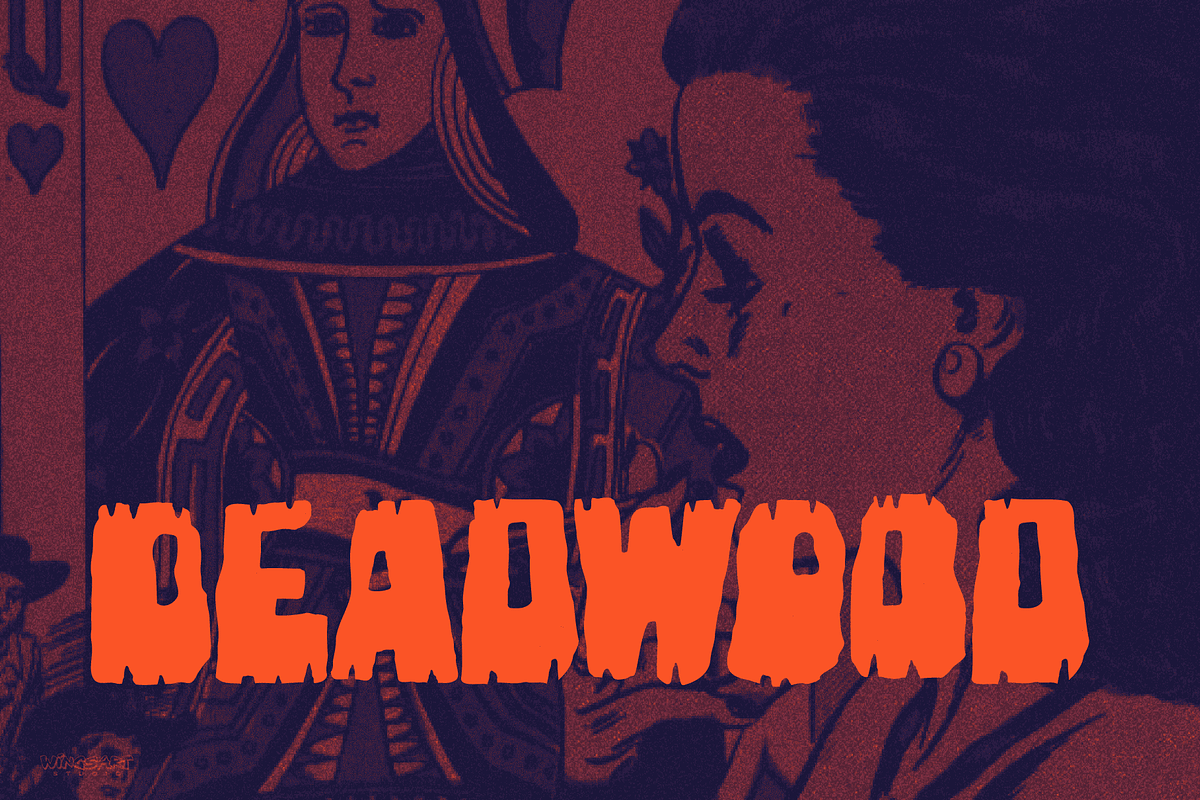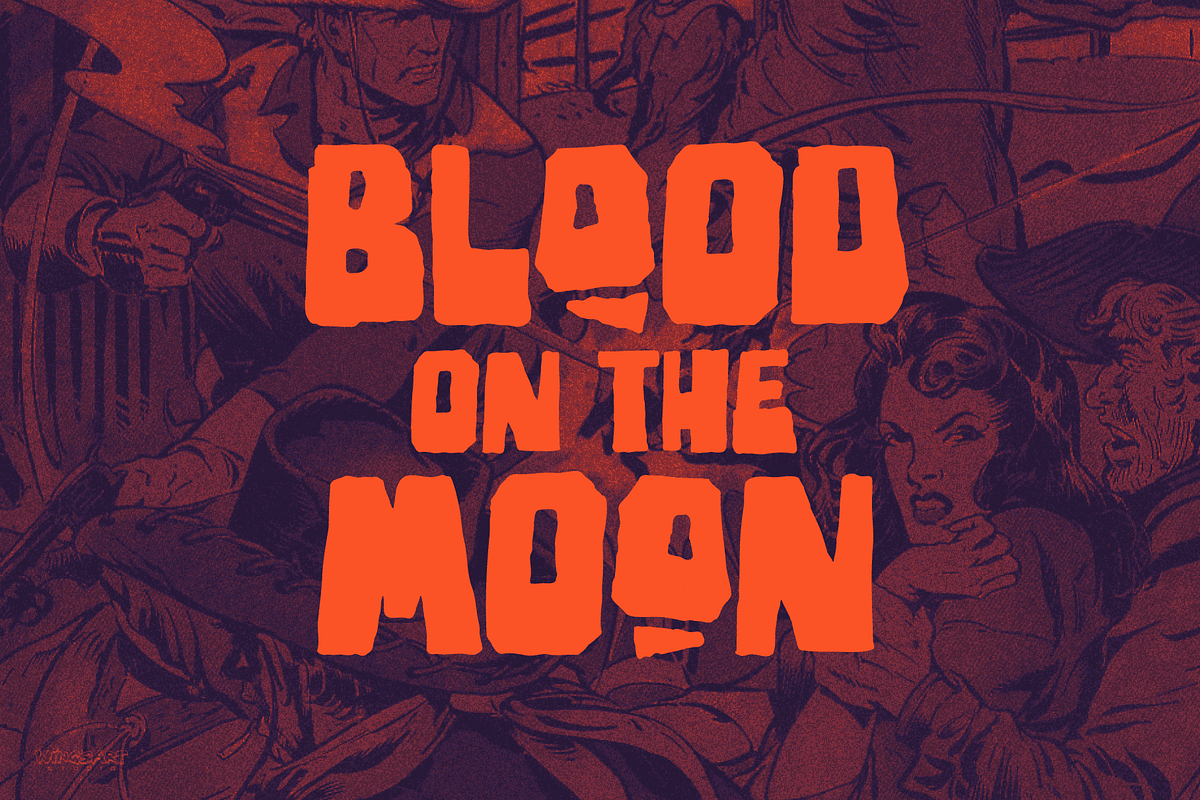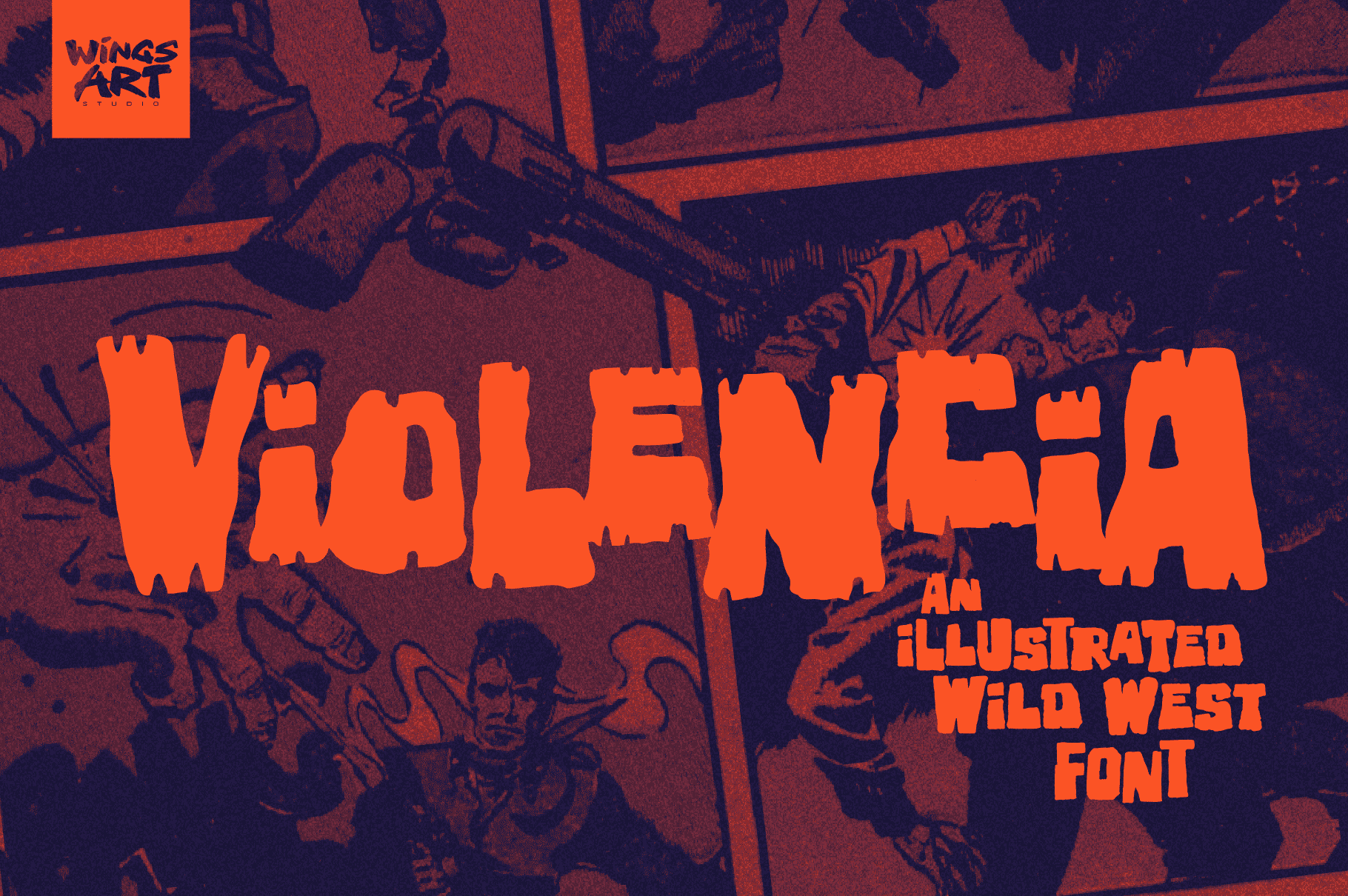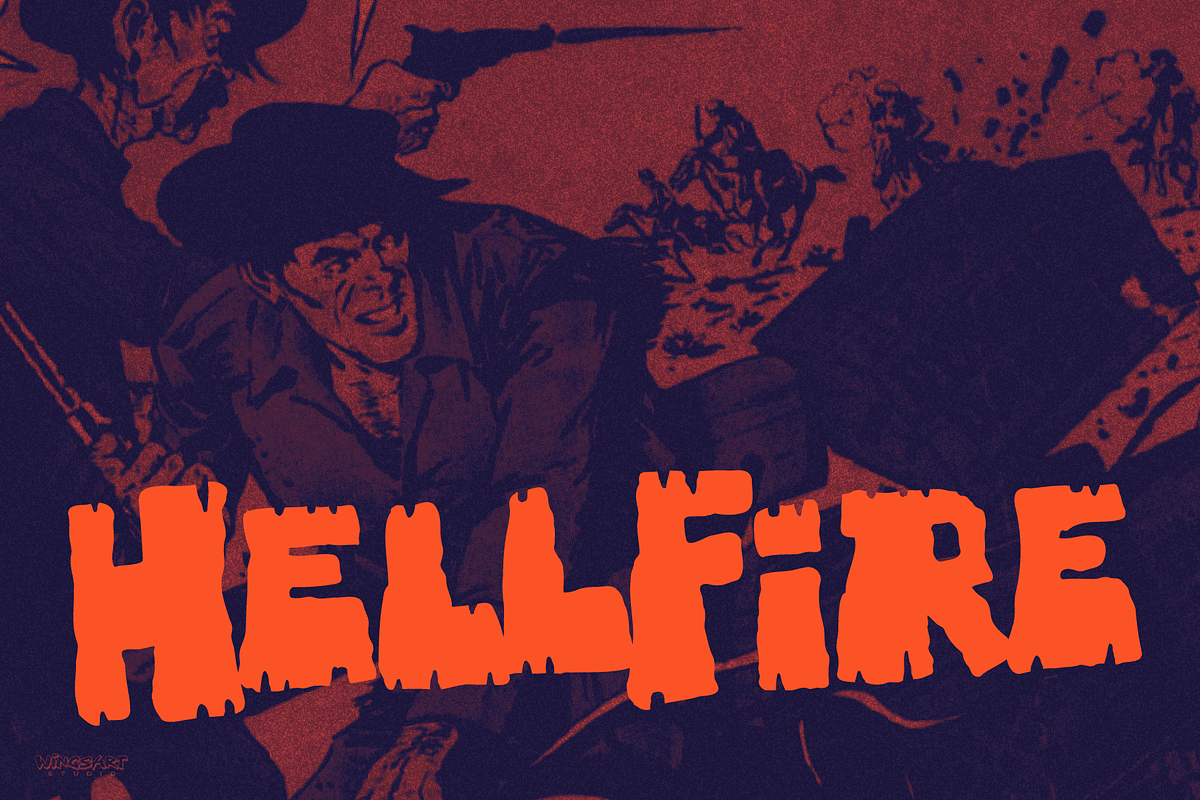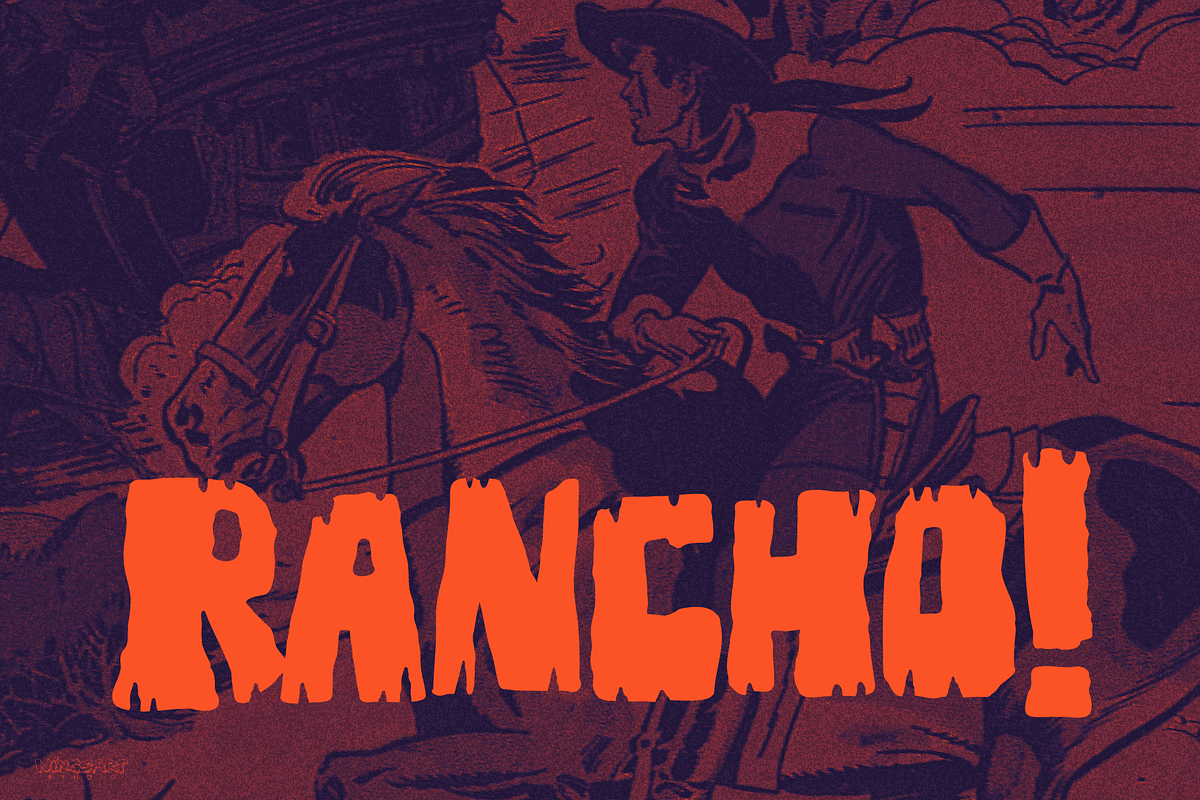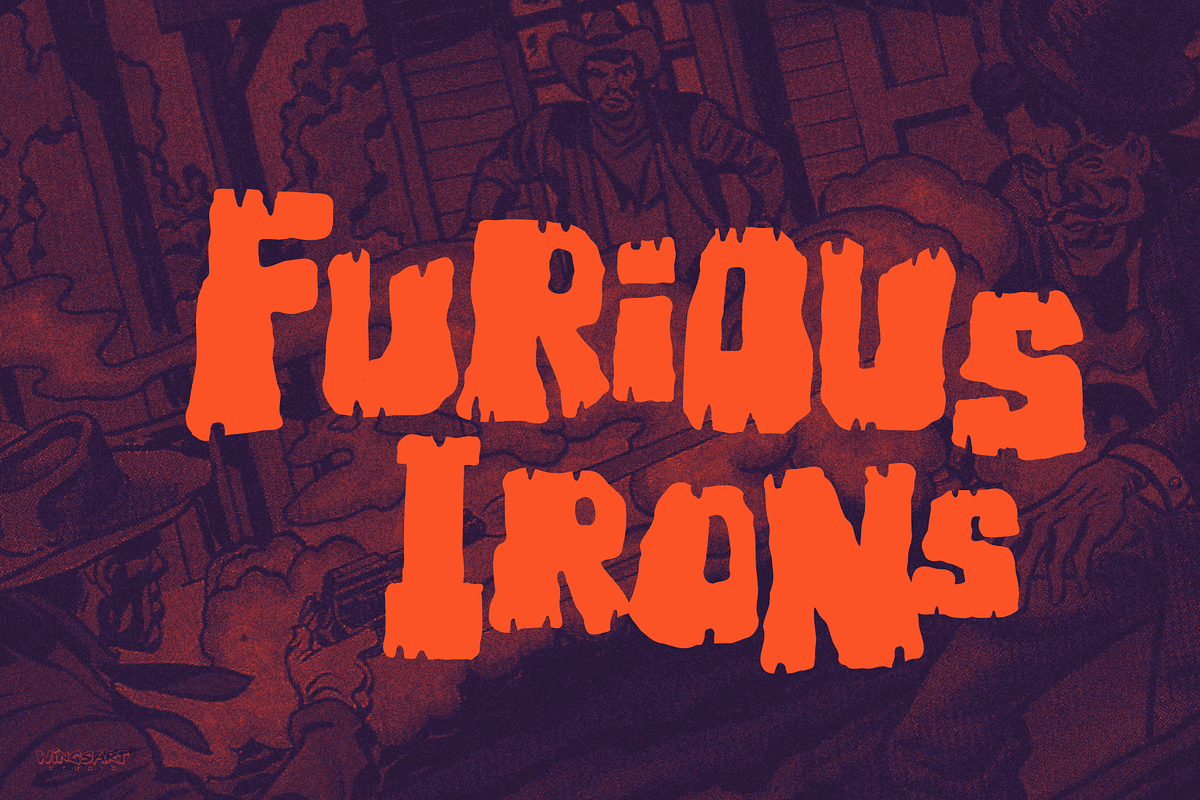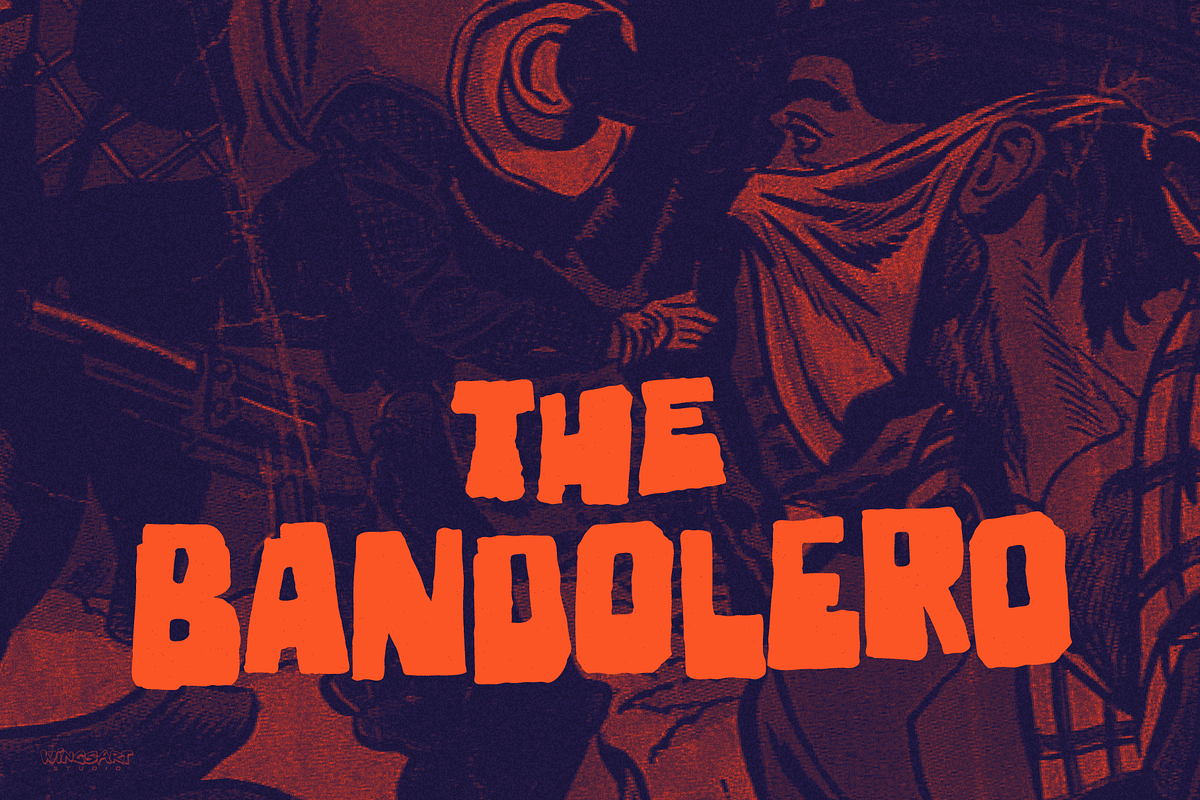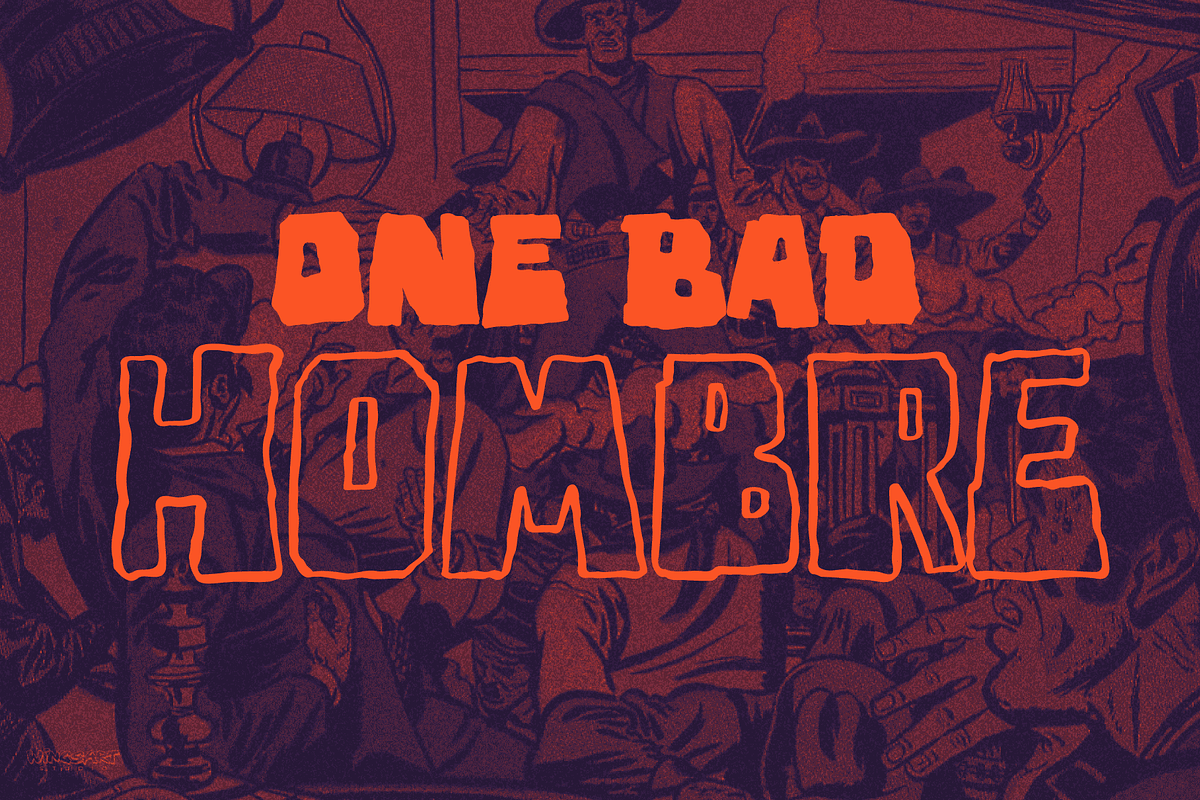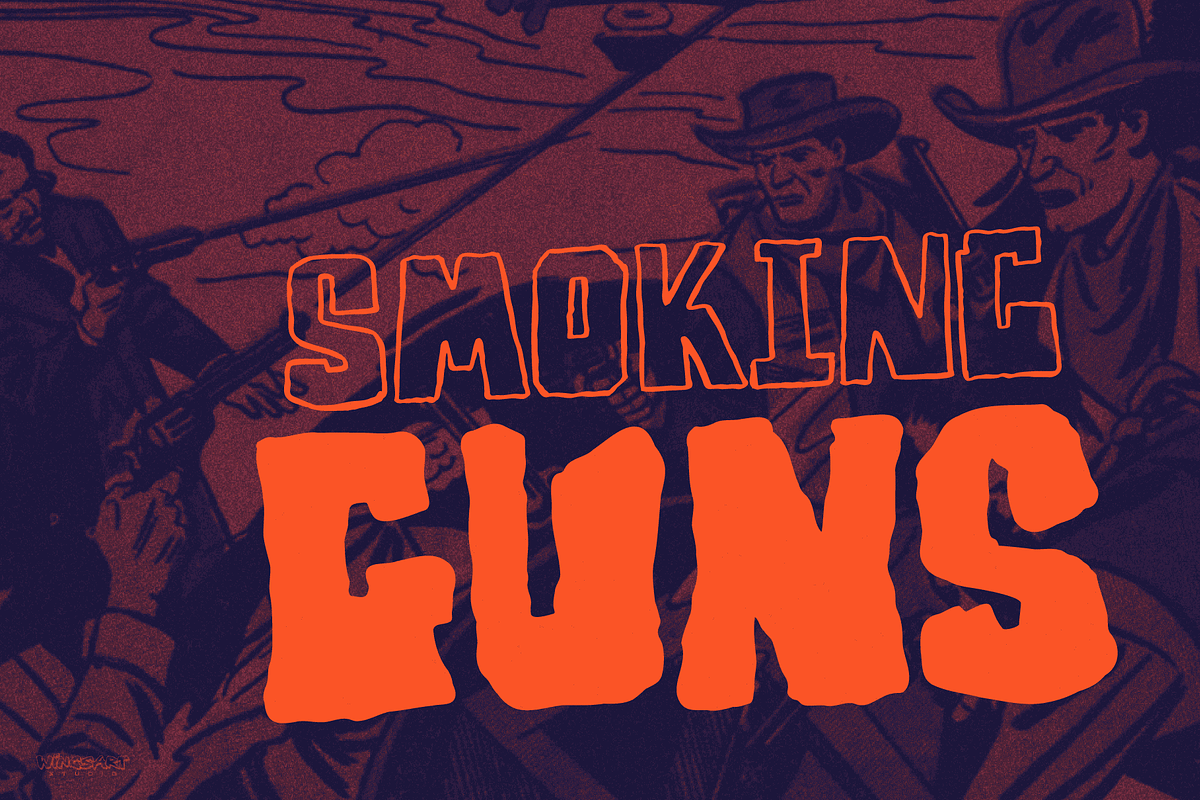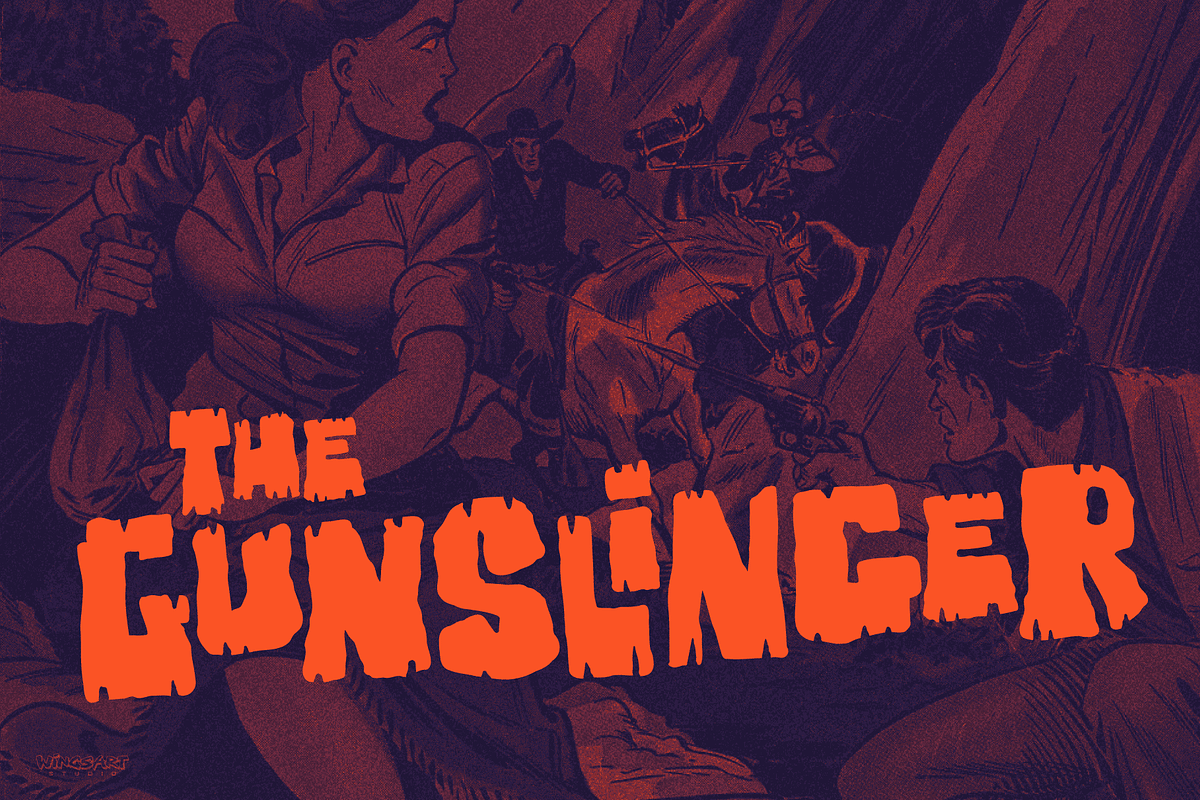
Violencia - A Wild West Font
Violencia - An Illustrated Wild West Font
Violencia is a hand-dawn font inspired by the legendary age of the Wild West and its tales of gunfights, train robberies and blood vendettas. It’s an all-caps design the evokes the textured style of vintage western movie posters, comics and novels.
The Violencia font family includes all-caps uppercase and lowercase characters, along with numerals, punctuation, symbols and language support. It also comes with a complete set of alternative characters, all in the 3 unique styles of, Distressed, Outline and Block.
Wingsart Studio Design Tip! Mix the uppercase and lowercase characters and look for interesting shape combinations that might occur within the letters. Take advantage of all the alternatives too for a much more custom look that’ll be unique to your design.